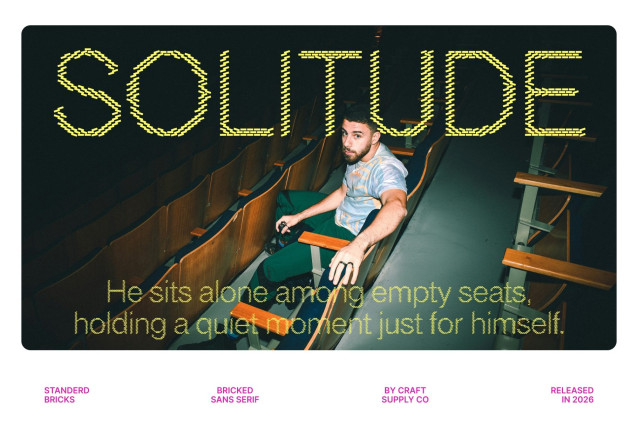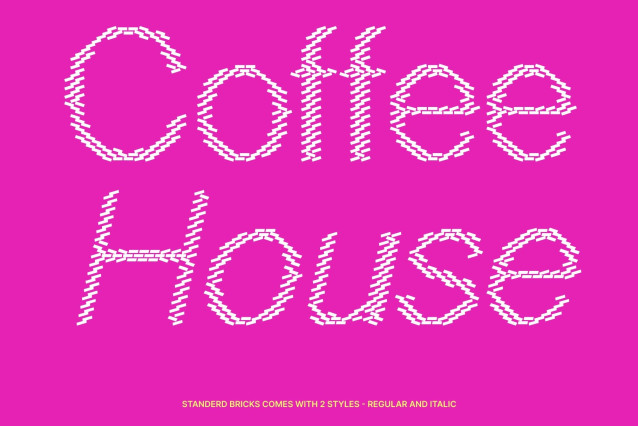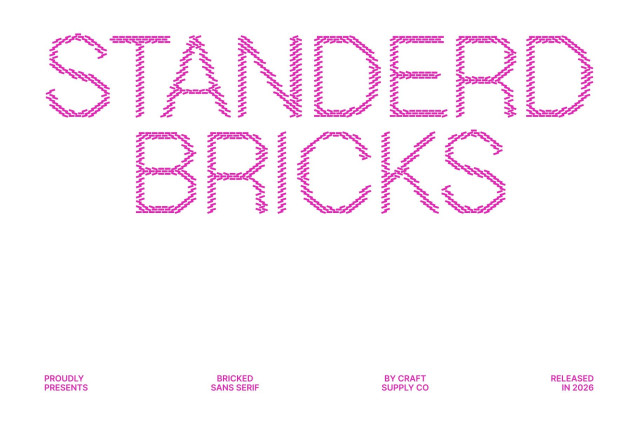
Standerd Bricks Font
Standerd Bricks – Modern Grotesk Sans Serif: Built for Everyday Impact
Clean Grotesk Foundation with Solid Brick Character
This is a modern grotesk sans serif designed to deliver clarity, flexibility, and a strong visual presence. Built on a timeless grotesk structure, this typeface introduces subtle brick-inspired detailing that gives every character a solid and structured appearance. The result is a balanced combination of functional simplicity and decorative personality, making the font feel dependable, modern, and visually distinctive.
Low Contrast Design for Small Text Excellence
Carefully crafted with low contrast strokes, this font performs beautifully in small text environments without sacrificing clarity. The smooth and consistent letterforms ensure effortless readability across paragraphs, captions, and detailed information. This makes the font highly reliable for editorial layouts, print materials, websites, packaging, and user interfaces where legibility is essential.